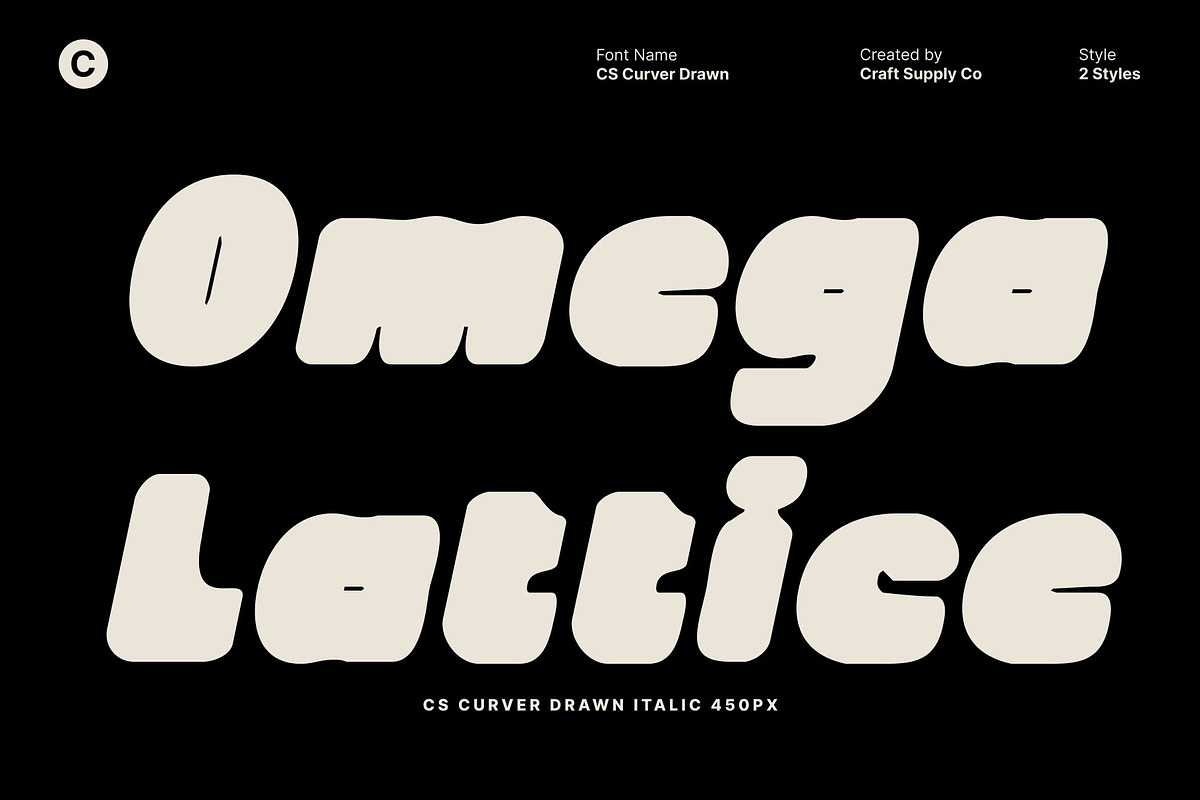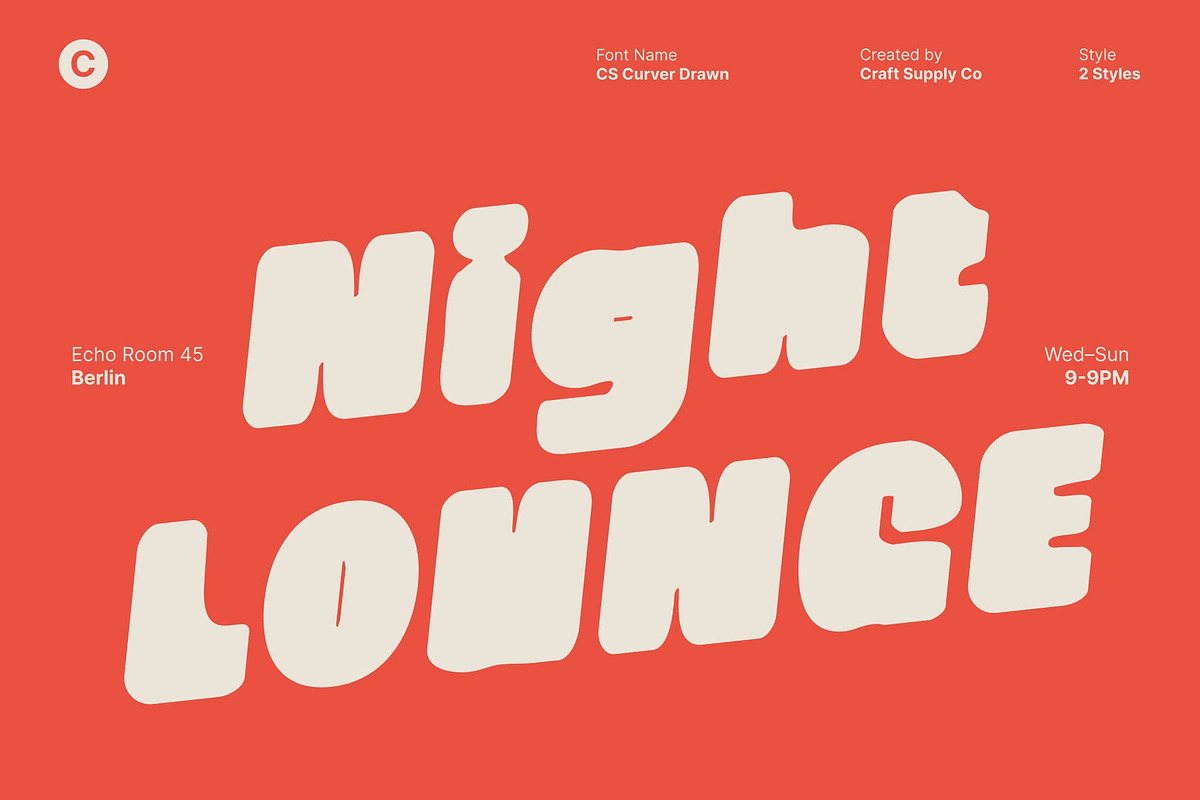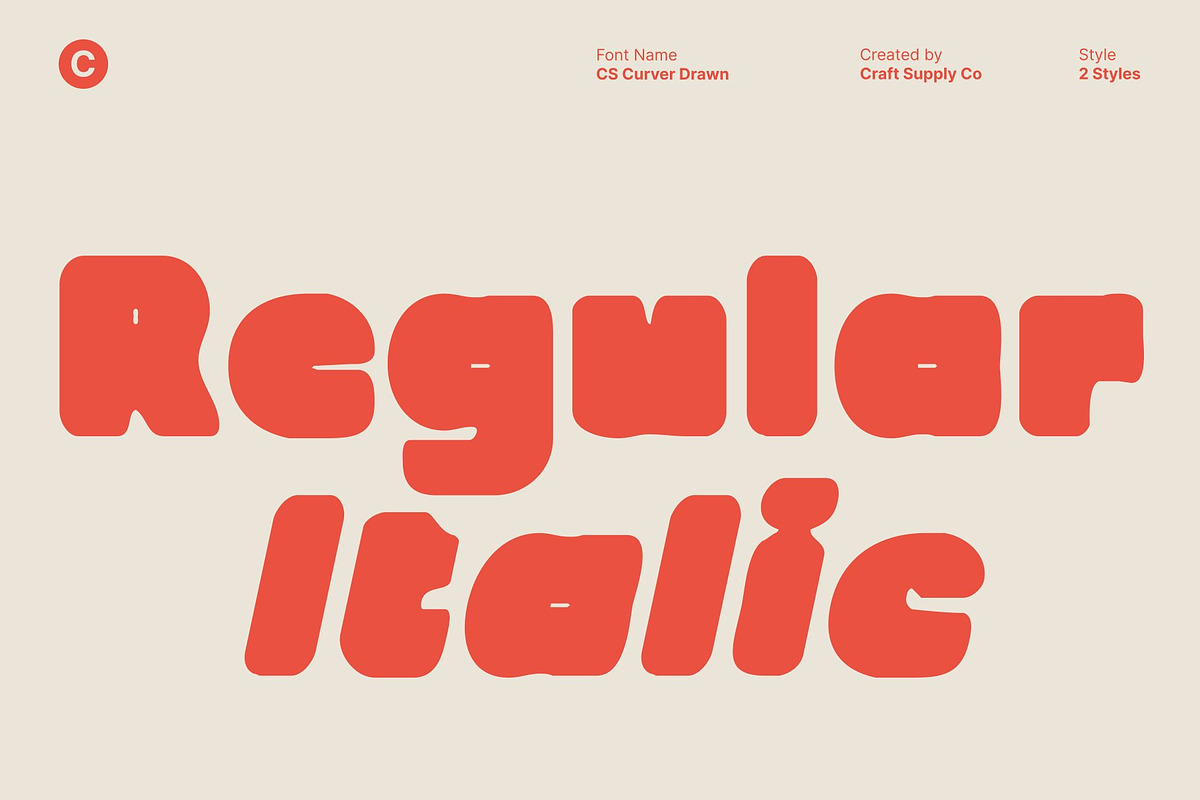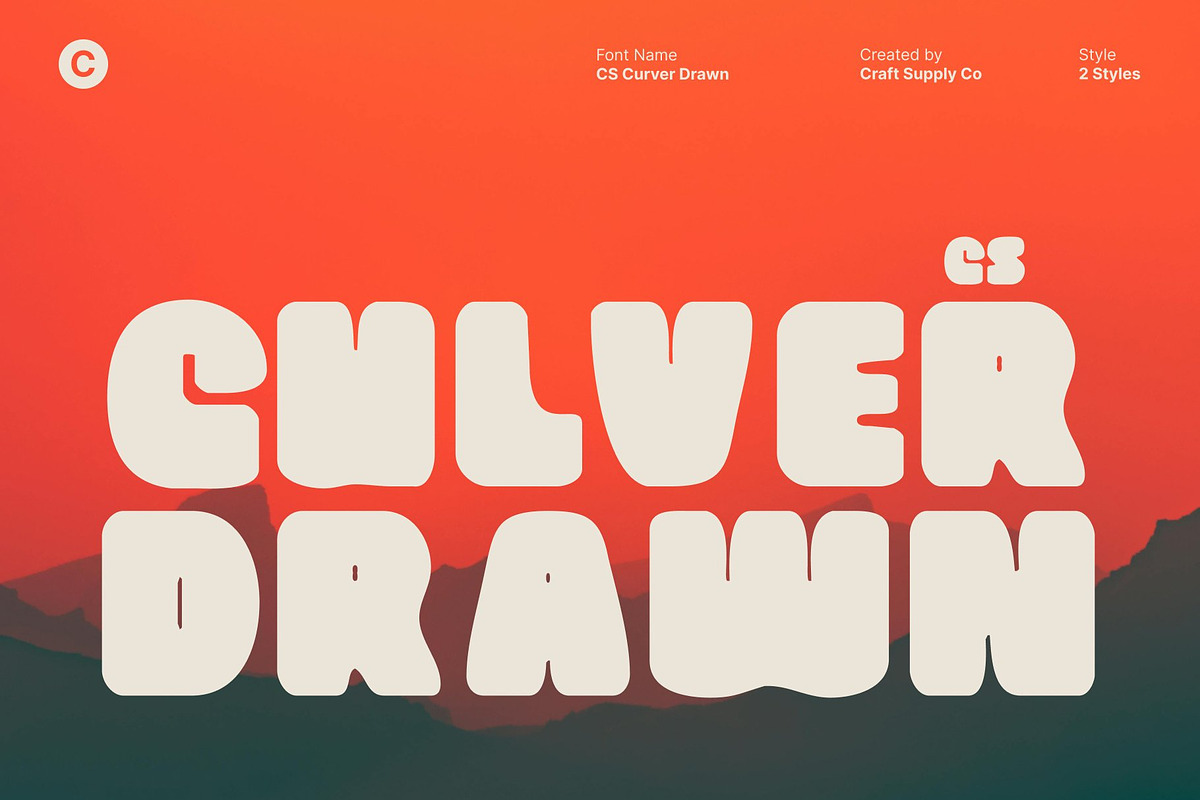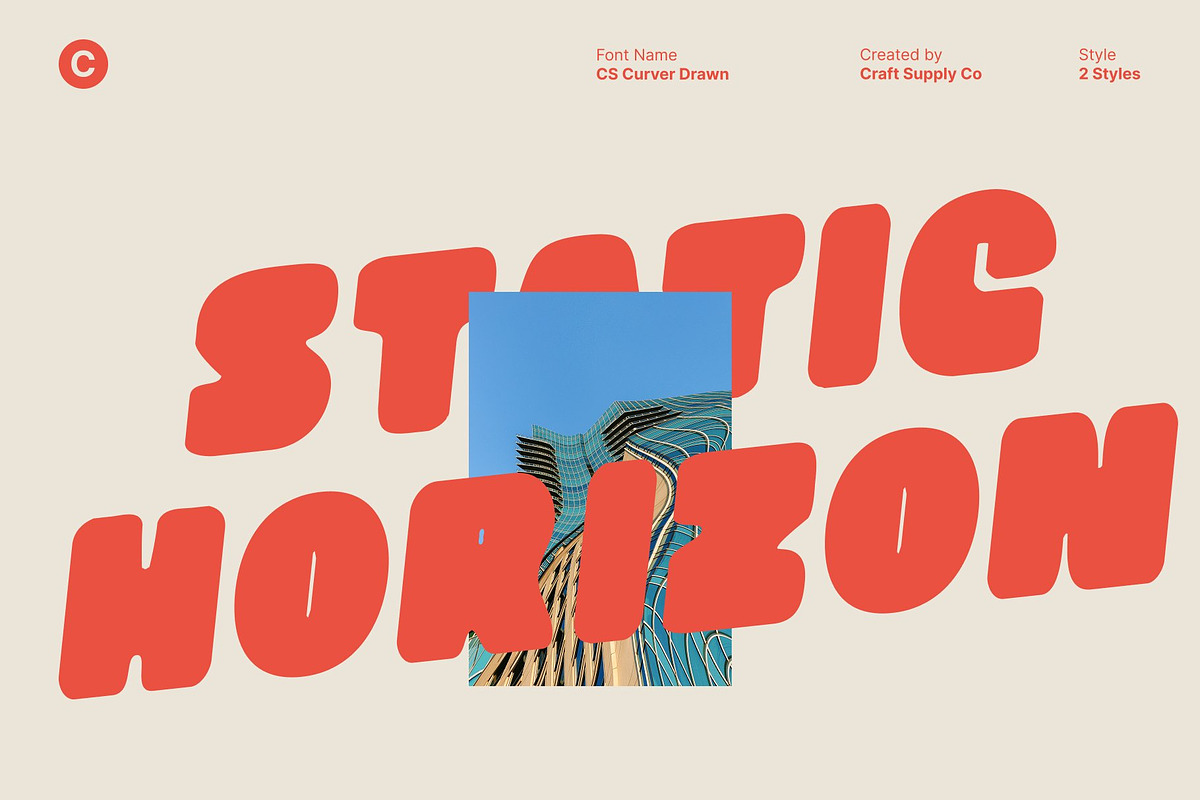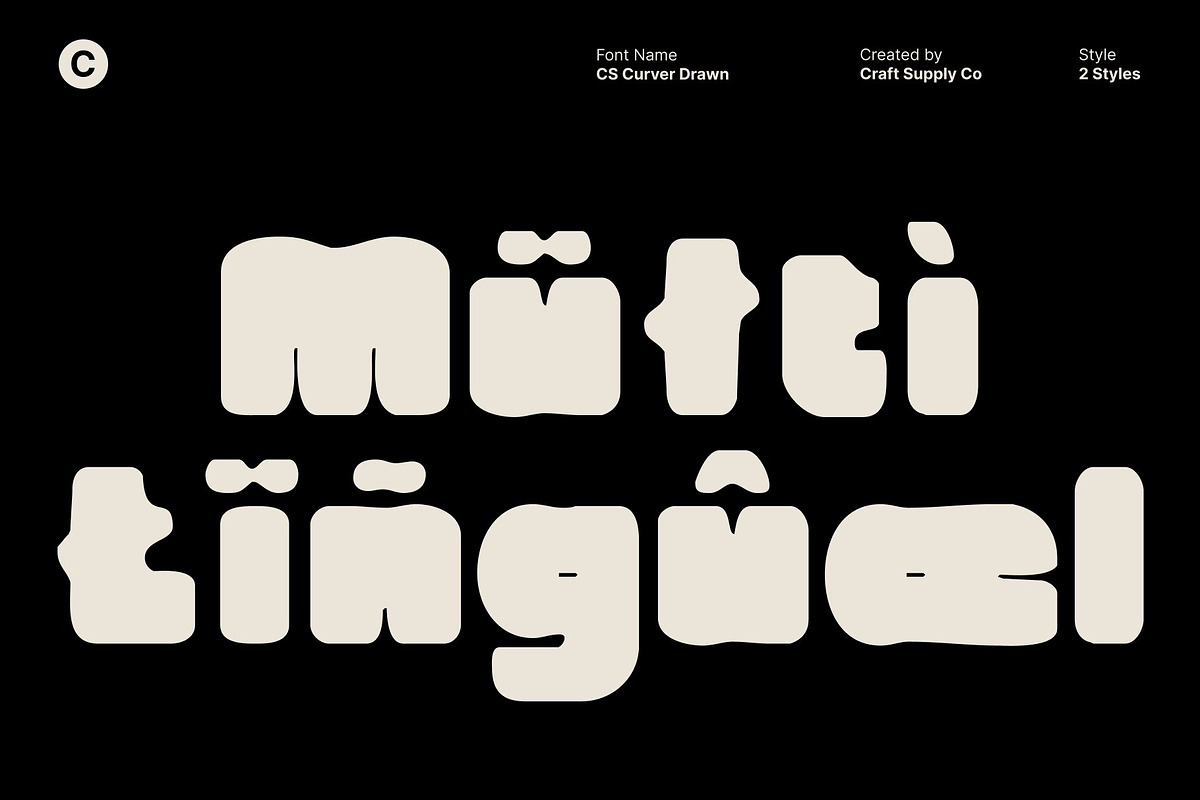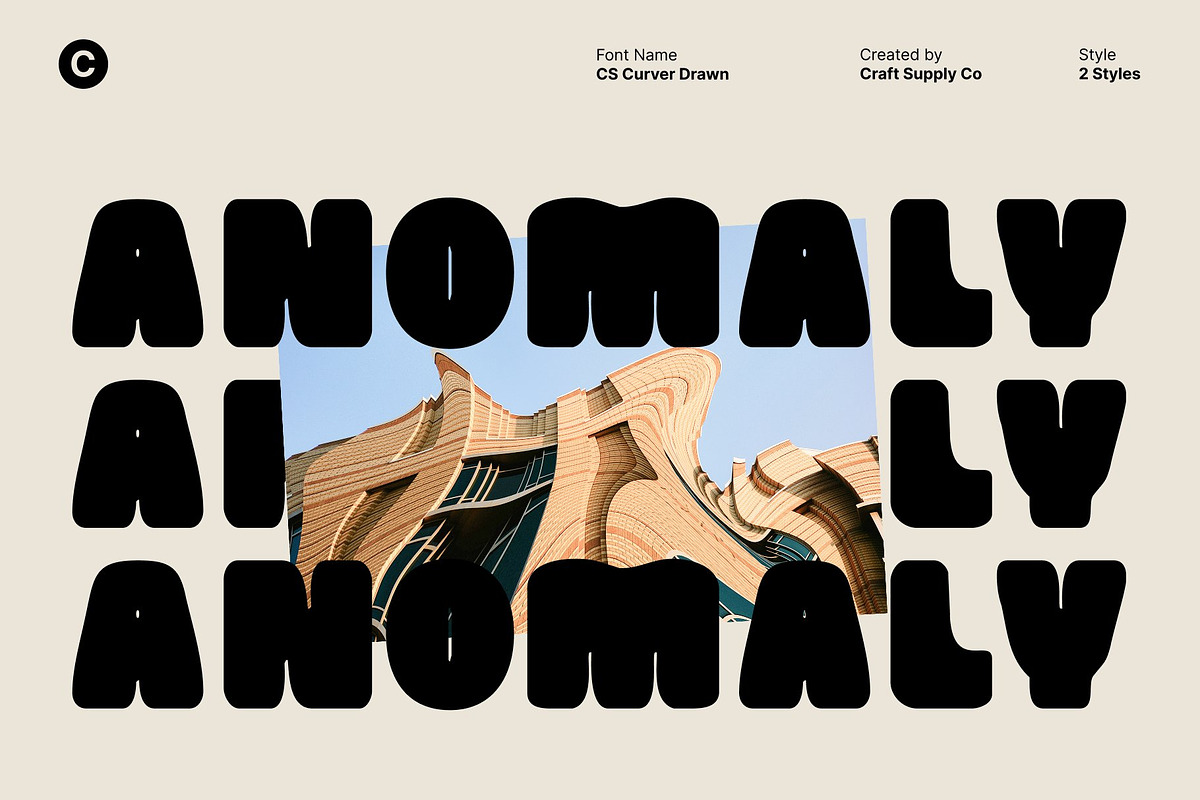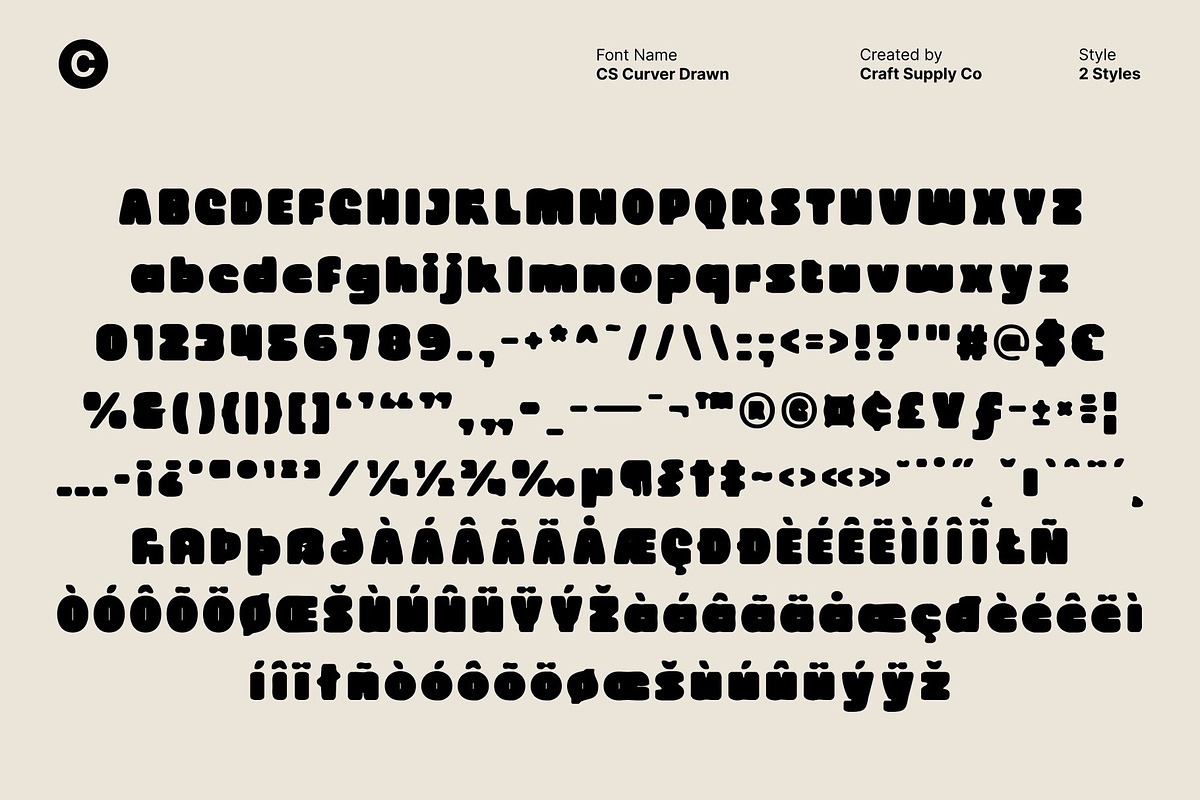
CS Culver Drawn
CS Culver Drawn – Bold Sans Serif with Retro Funky Style
Bold, Playful, and Full of Character This is a bold sans serif display font that blends confident structure with a retro funky attitude. Its thick strokes and expressive proportions create an energetic look, while the hand-drawn texture adds warmth and personality. The result is a typeface that feels lively, playful, and instantly engaging, perfect for designs that want to stand out with character.
Retro Funk Meets Modern Clarity Inspired by vintage funk and nostalgic pop aesthetics, this font channels classic retro vibes through bold, rounded forms and dynamic shapes. At the same time, its clean construction keeps the font clear and readable. This balance between retro charm and modern clarity makes it versatile for both expressive and polished design work.
Made for Loud and Lively Visuals Designed for display use, this font shines in music posters, event promotions, packaging, social media graphics, and creative branding. Its bold weight and funky personality ensure maximum impact, helping messages feel fun, confident, and full of energy.
Stylish, Fun, and Memorable With its unique combination of bold form, retro influence, and hand-drawn texture, this font delivers typography that leaves a lasting impression. It’s an excellent choice for designers looking to add joy, nostalgia, and a bold visual voice to modern creative projects.